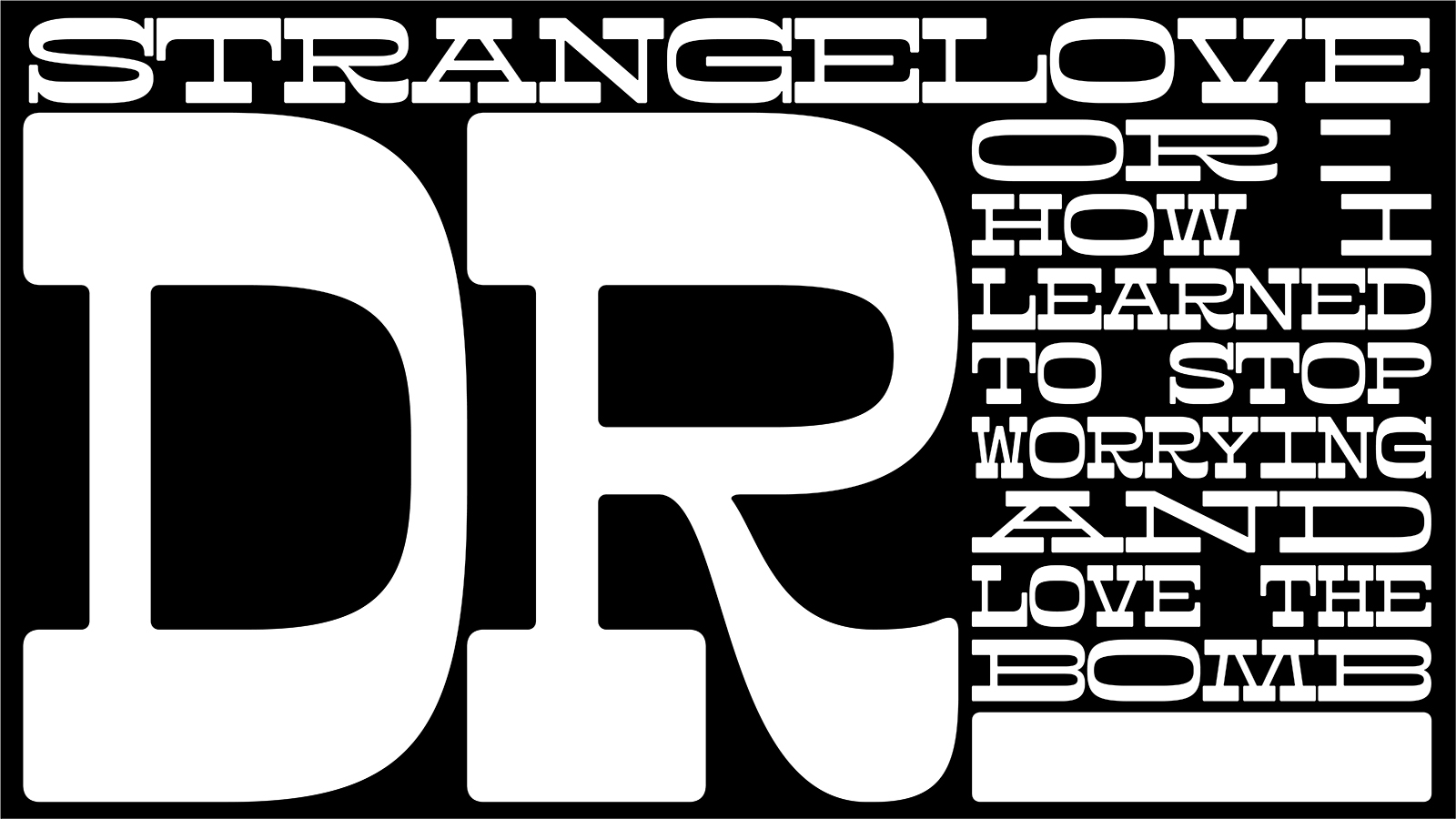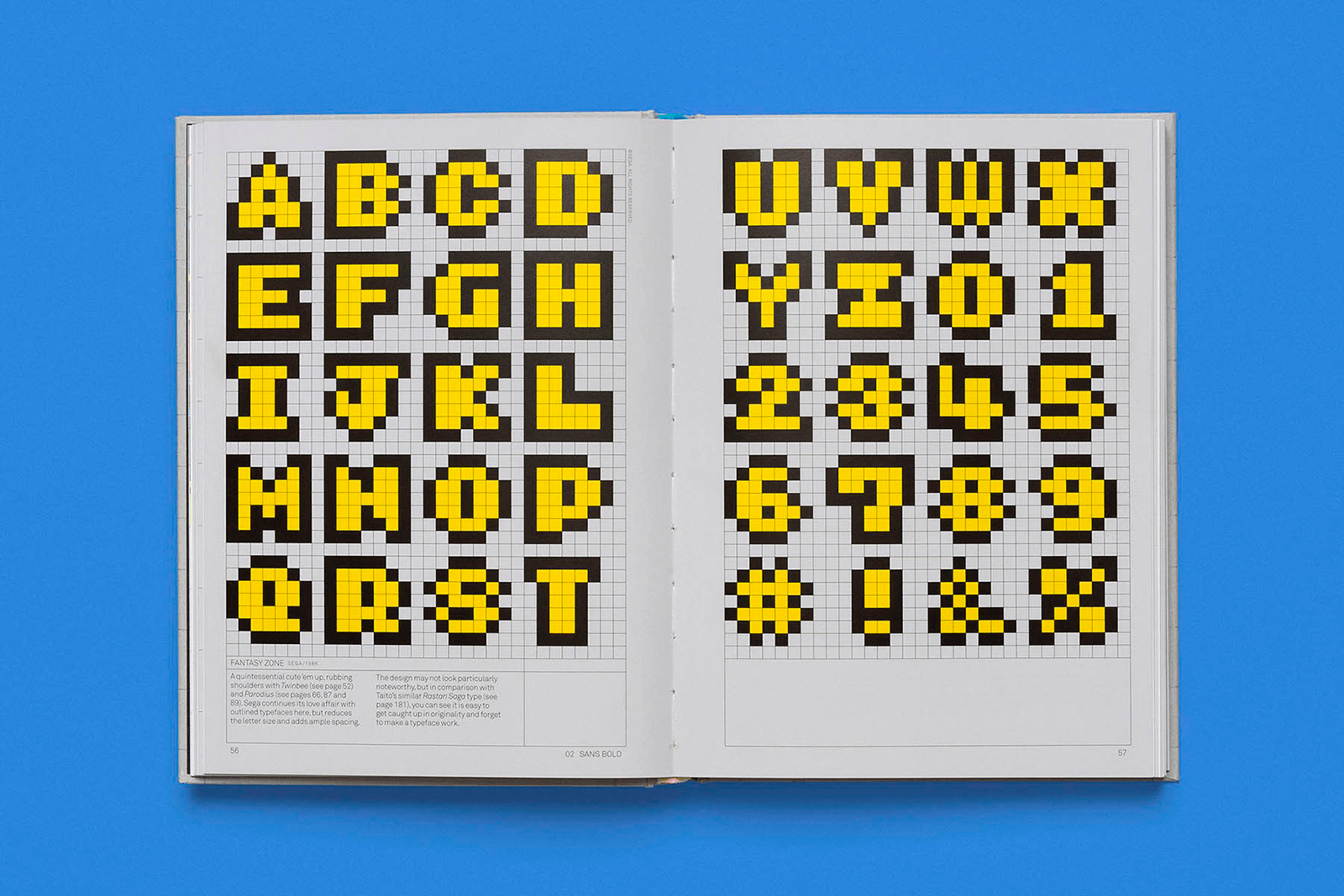
Q&A Toshi Omagari
Toshi Omagari is an independent typeface designer in London who runs his own studio. Inspired by the old game fonts, Toshi has started Tabular Type Foundry that releases monospaced typefaces only. He also runs Omega Type Foundry for non-monospaced fonts. Writing systems of his interest and specialty are not only limited to Latin but others, including Cyrillic, Greek, Arabic, Tibetan, and Mongolian. At Monotype he has released a number of revivals of forgotten classics such as Metro Nova, The Berthold Wolpe Collection, and Neue Plak, while also working on custom typefaces for clients such as H&M and Sir Quentin Blake.
How your passion for retro arcade games has influenced your work as a type designer beyond the aesthetic part of letterforms?
Toshi Omagari I have gained more insight into video game typography and opportunity to speak about the topic, which led me to some new gaming-related projects. It also helped me understand colour fonts a lot better.
“Pegasus which taught me an important lesson throughout its revival process: consistency is overrated!.”
— Toshi Omagari
Which of the forgotten classic typefaces you have redesigned is more special to you?
Each project was unique and just as special as the other, but the Berthold Wolpe project was especially memorable for me; Berthold Wolpe was an immigrant designer in Britain that made immeasurable contributions to the design culture. I was delighted to bring his works, most of them previously unavailable to the public, back to the designers’ toolkit. My personal favourite is Pegasus which taught me an important lesson throughout its revival process: consistency is overrated!
During your creative process, which is the percentage of the traditional drawing on paper before switching into the digital workflow?
I used to draw a lot before but my consumption rate of sketch books is probably not that high. I draw only a small handful of letters at the start and switch over to Bézier curves pretty early.
“I draw only a small handful of letters at the start and switch over to Bézier curves pretty early.”
— Toshi Omagari
When you started, who were the teachers or professionals who had the greatest impact upon you?
There are too many to count, but here’s a small selection:
– Shoyu Omachi, a typeface/logotype designer whose famous works include Weekly Shonen Jump and Citizen logotypes. He was my first typography teacher.
– Akira Kobayashi, the famous typeface designer whose book on Latin type inspired me to pursue the career.
– Yoshihisa Shirai, a graphic designer and typographer who had been the designer for the IDEA magazine for a long time. He spent a lot of time with me at the undergraduate, and made me a big fan of Monotype faces :)
– Minoru Niijima, my main mentor at the undergraduate and one of the last students of Paul Rand.
– Gerry Leonidas, the head of MATD at the University of Reading.
What is your ratio of self-initiated typefaces vs. typeface commissions?
Majority of my work is commissions. They pose different kinds of challenges that I equally enjoy.
Have your work habits changed notably after the lockdown and the later pandemic restrictions?
My work had been office-based before the pandemic, and I was forced to go freelancing. The change in my working circumstance affected me positively; I appreciate that I do not have a boss, PR department, and 9–17 working hours.
Do you prefer a permanent/dedicated workspace, or do you like to keep mobile?
I have a standing desk and office chair in my room, but can work anywhere. I like working in a park with a lot of sunlight and no distraction (i.e. internet).
Favourite kind of music to listen to while working?
It can be any kind of music, but usually something with more narrative like YouTube videos and anime.
“You do not have to be as good as native, but you should be open and flexible.”
— Toshi Omagari
Do you have any words of wisdom for someone wanting to become a designer/type designer/art director?
Do make an effort to learn about more scripts than just your native script like Latin. You do not have to be as good as native, but you should be open and flexible.